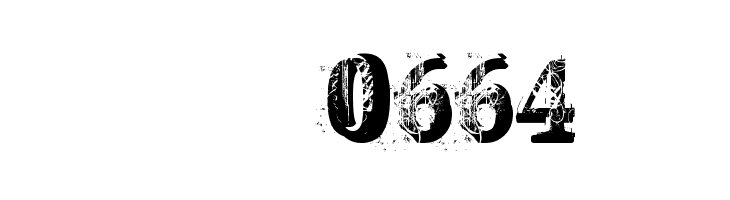
Flapstick DEMO Шрифта
- Шрифта: Flapstick DEMO
( Fonts by Gyom Seguin - last-soundtrack.daportfolio.com )
A bold, distressed font with a vintage, weathered appearance.